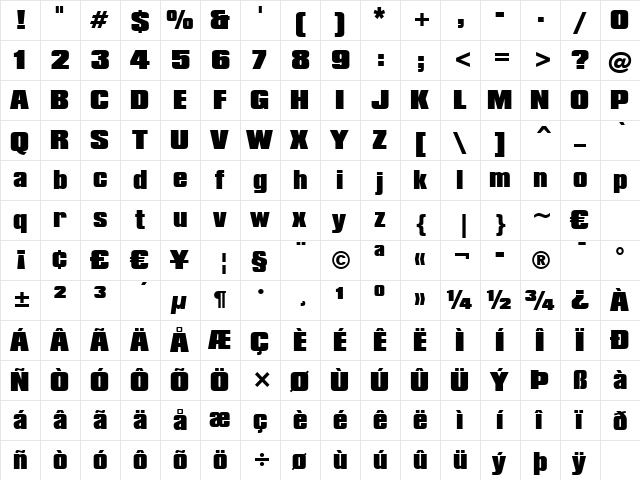
font102 Regular
Design Context for font102 Typeface
font102 offers clean, dependable letterforms without strong stylistic allegiance, making it a practical choice for designers who need flexibility.